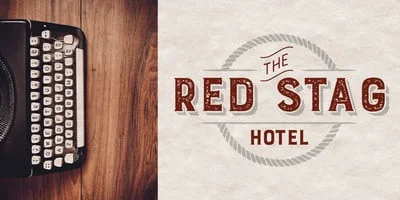
Burford Rustic Font
Burford Rustic Font is an exceptional choice for projects that demand a handcrafted, weathered, and distinctly authentic vintage aesthetic. It's perfectly suited for artisanal product labels, rustic wedding invitations, craft brewery branding, outdoor adventure gear, and any design where you want to evoke a sense of rugged charm, timeless tradition, and natural warmth. Imagine it gracing a unique coffee shop's chalkboard menu, adding an earthy yet sophisticated touch to a handmade soap package, or giving a distinctive, aged personality to a heritage brand's logo. Its textured forms and charming imperfections ensure your message is conveyed with both sincerity and an undeniable sense of genuine craftsmanship.
What makes Burford Rustic Font so exciting is its ability to immediately infuse a design with a feeling of honest, weathered beauty and an endearing, hand-drawn appeal. It offers a visual statement that feels both unique and universally appealing, making it perfect for designs that aim to feel authentic, heartfelt, and genuinely memorable. This font isn't just about conveying text; it’s about creating an atmosphere of simple beauty and rustic elegance, bringing a sense of spontaneous creativity and honest character to your visuals. It's the ideal tool for designers who want their work to feel personal, inviting, and truly stand out with a touch of charming individuality.
The Burford Rustic Font family typically offers a rich array of weights and styles to enhance its versatility, often including textured, shadowed, and various layered options that can be combined to create truly unique effects. You might find a standard Regular weight that embodies its core rustic design, along with specific variants like "Inline," "Shadow," "Press," or "Outline" that allow for intricate, custom typographic compositions. These nuances ensure that Burford Rustic Font can be the cornerstone of a truly unique and powerfully thematic visual identity, helping your designs stand out with an undeniable sense of character and authentic, natural allure.